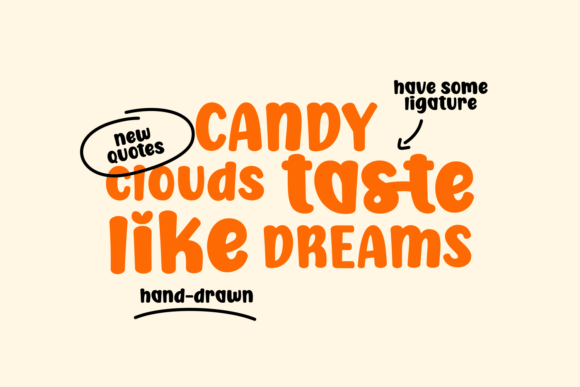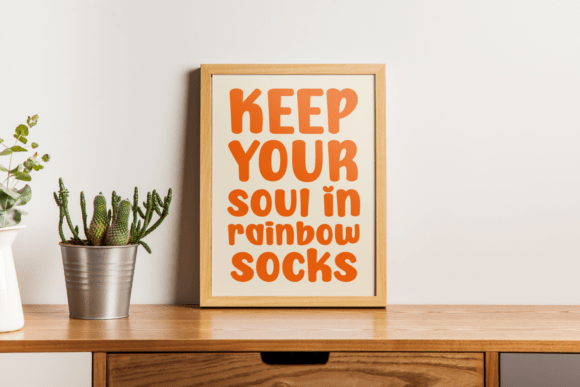
Introduction to Quinest Font
Meet Quinest, a bold, playful handwritten display font that brings personality to your designs.
With its chunky curves and quirky letterforms, Quinest is perfect for adding a fun and friendly vibe to any project Use Quinest for t-shirt designs, fun logos, snack packaging, event posters, motivational quotes, or eye-catching social media templates โ itโs guaranteed to make your work stand out and put a smile on peopleโs faces.
Key Features of Quinest Font
Why Choose Quinest Font?
Quinest Font offers exceptional quality and versatility, making it a valuable addition to your design toolkit. Whether you’re creating for personal projects or commercial use, Quinest Font delivers professional results.